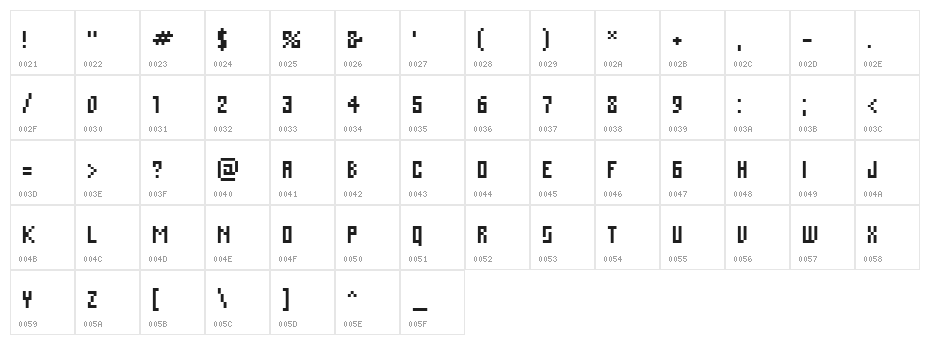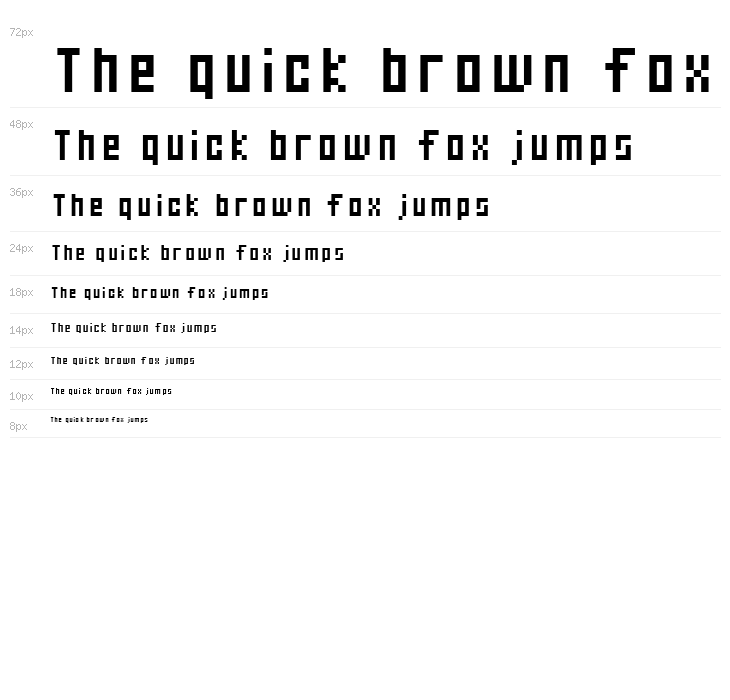
C Web Large Font
C Web Large Description
This font features a pixelated, blocky design reminiscent of early digital displays and retro video games. Each character is constructed with a grid-like precision, giving it a distinctly digital and geometric appearance. The uppercase and lowercase letters maintain a consistent height, enhancing the uniformity and readability of the text. Numbers and special characters follow the same pixelated style, ensuring a cohesive look across all glyphs. This font's nostalgic aesthetic is ideal for projects that aim to evoke a sense of vintage computing or gaming culture.
Overall StyleVintage
Use CaseLogos, Headlines, Digital Art
Proposed ProjectsIdeal for retro video game designs, digital art projects, tech-themed posters, and nostalgic branding.